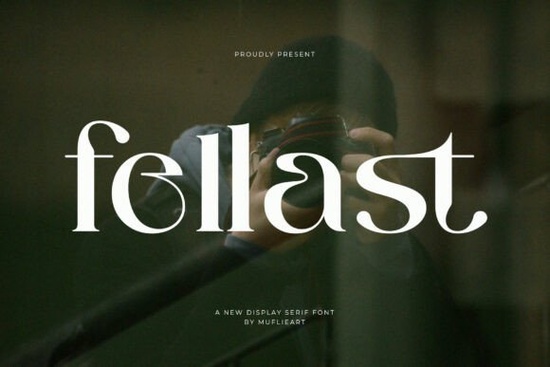
Fellast Font is a standout choice for anyone looking to add a touch of elegance and creativity to their design projects. This display serif font combines the grace of traditional typography with modern, fluid elements that make it perfect for a variety of applications. Whether you're working on film titles, branding, or social media content, Fellast brings a unique visual flair that captures attention and conveys a sense of artistic depth.
Designed with a balance of sharp, classical serifs and avant-garde geometry, Fellast stands out thanks to its extended crossbars and distinctive features like the looping terminal on the 's' and the curved negative space on the 'e' and 'a'. These details give the font a dynamic, almost liquid-like quality that can elevate any design. The moody, cinematic background of a photographer reflected in glass adds to the font’s visual storytelling, making it ideal for creative professionals who want to convey emotion and atmosphere through their work.
What Makes Fellast Font Unique?
Fellast Font isn’t just another typeface it’s a statement. Its design is inspired by the intersection of art and technology, offering a fresh take on what a display serif can achieve. The font’s fluidity and structure make it versatile enough for both digital and print use. For example, independent filmmakers might find it useful for title sequences that need a modern yet timeless feel, while streetwear brands could use it to create eye-catching logos that stand out in a crowded market.
One of the most striking aspects of Fellast is how it balances tradition with innovation. The classic serifs provide a sense of stability and refinement, while the geometric elements introduce a contemporary edge. This duality makes the font adaptable to different styles and industries. Whether you're designing packaging for a boutique product or creating a watermark for photography, Fellast offers a level of detail and character that’s hard to match.
Best Uses for Fellast Font
There are countless ways to use Fellast Font depending on your creative goals. For designers, it's an excellent tool for crafting headlines that demand attention. Its unique shapes and curves can add personality to anything from social media posts to magazine layouts. Print-on-demand sellers might appreciate how it can enhance product labels or promotional materials, giving them a more professional and artistic look.
Small businesses looking to build a strong brand identity can also benefit from using Fellast. Its visual appeal helps create a memorable impression, which is crucial for standing out in competitive markets. For creative hobbyists, the font provides an opportunity to experiment with typography and explore new design possibilities without needing advanced technical skills.
Whether you're a designer, a small business owner, or a creative hobbyist, Fellast Font offers a powerful way to express your ideas with style and sophistication. Its blend of classic and modern elements ensures that it remains relevant across different design trends and applications.
Take some time to explore how Fellast can fit into your workflow. Try using it in different contexts to see how it transforms your projects. With its unique aesthetic and practical versatility, it’s a valuable addition to any designer’s toolkit.
By incorporating Fellast Font into your designs, you’re not just choosing a typeface you’re embracing a creative direction that sets your work apart.